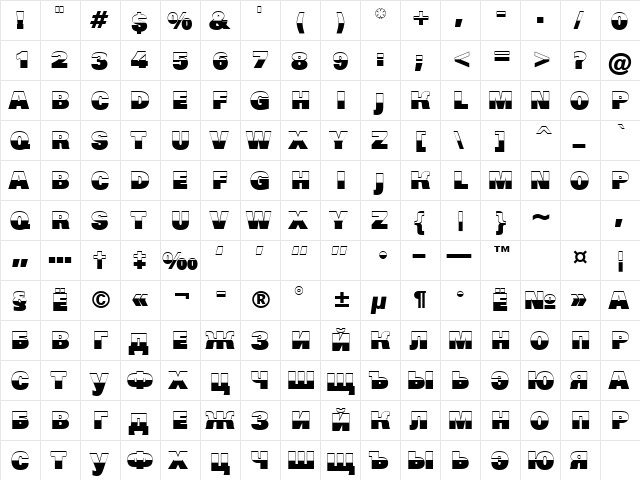
a_GroticTitulB&WHv Regular Font Preview
a_GroticTitulB&WHv Regular
a_GroticTitulB&WHv Regular Font Details
Design Context for a_GroticTitulB&WHv Typeface
a_GroticTitulB&WHv offers clean, dependable letterforms without strong stylistic allegiance, making it a practical choice for designers who need flexibility.
Pro Tip: Use a_GroticTitulB&WHv in both headline and body roles to test its range before committing to a single application.